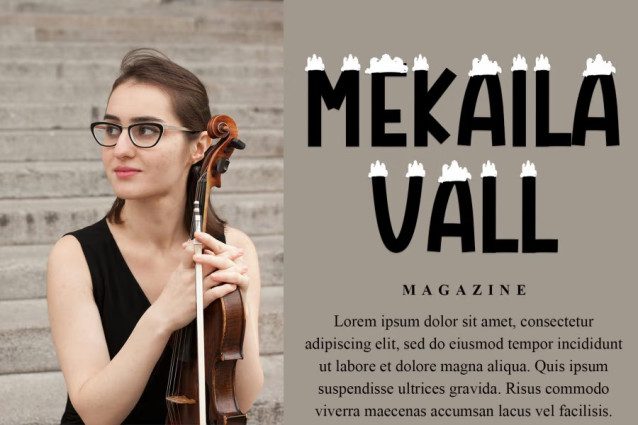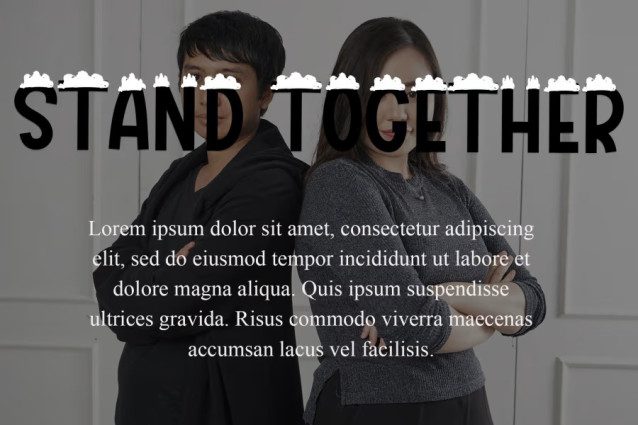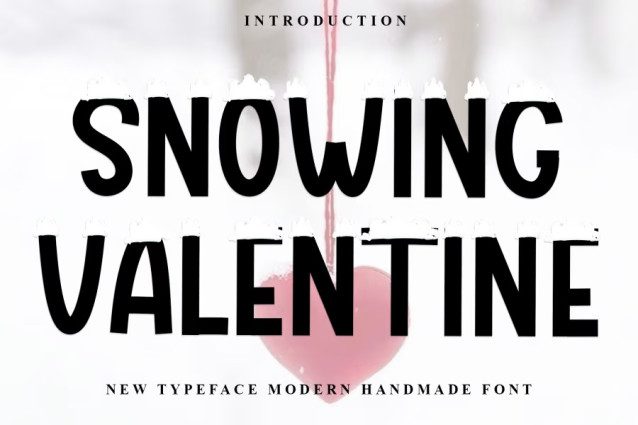
Snowing Valentine Font
Snowing Valentine Font is a sweet and friendly handwritten font. Its natural and unique style makes it incredibly fitting to a large pool of designs. The only limit is your imagination!